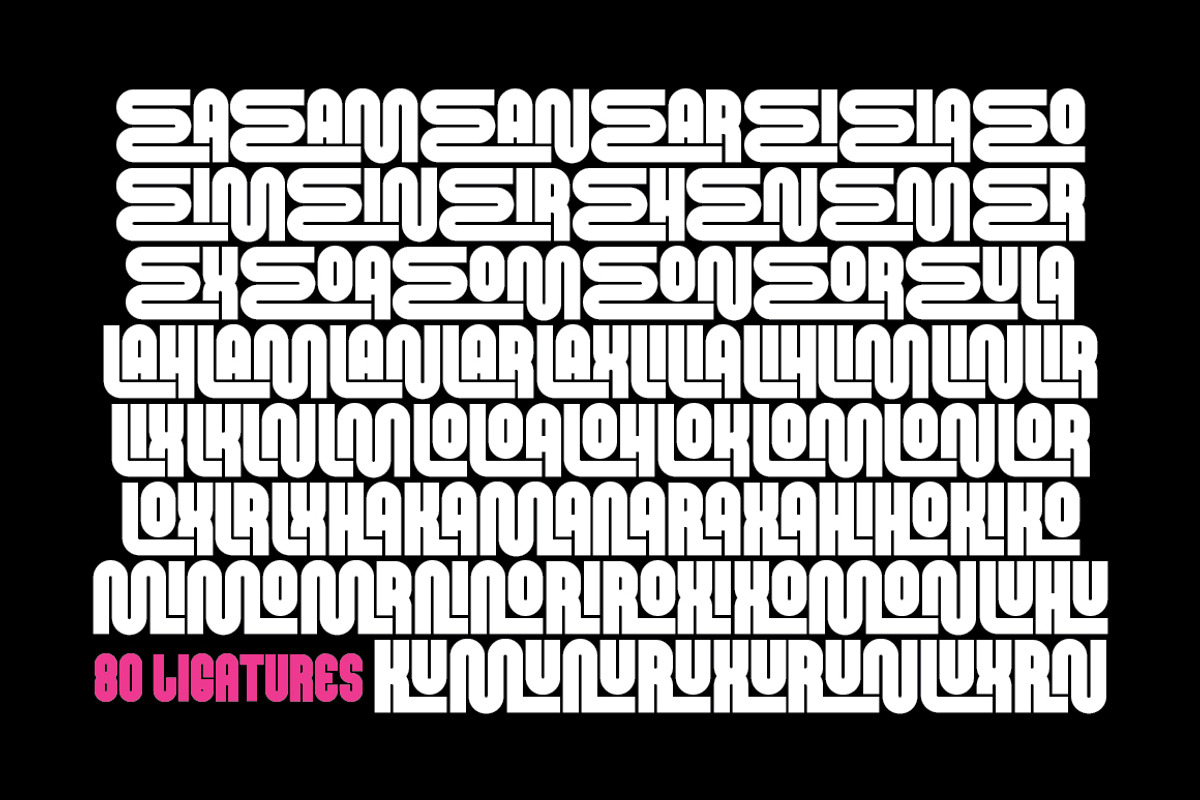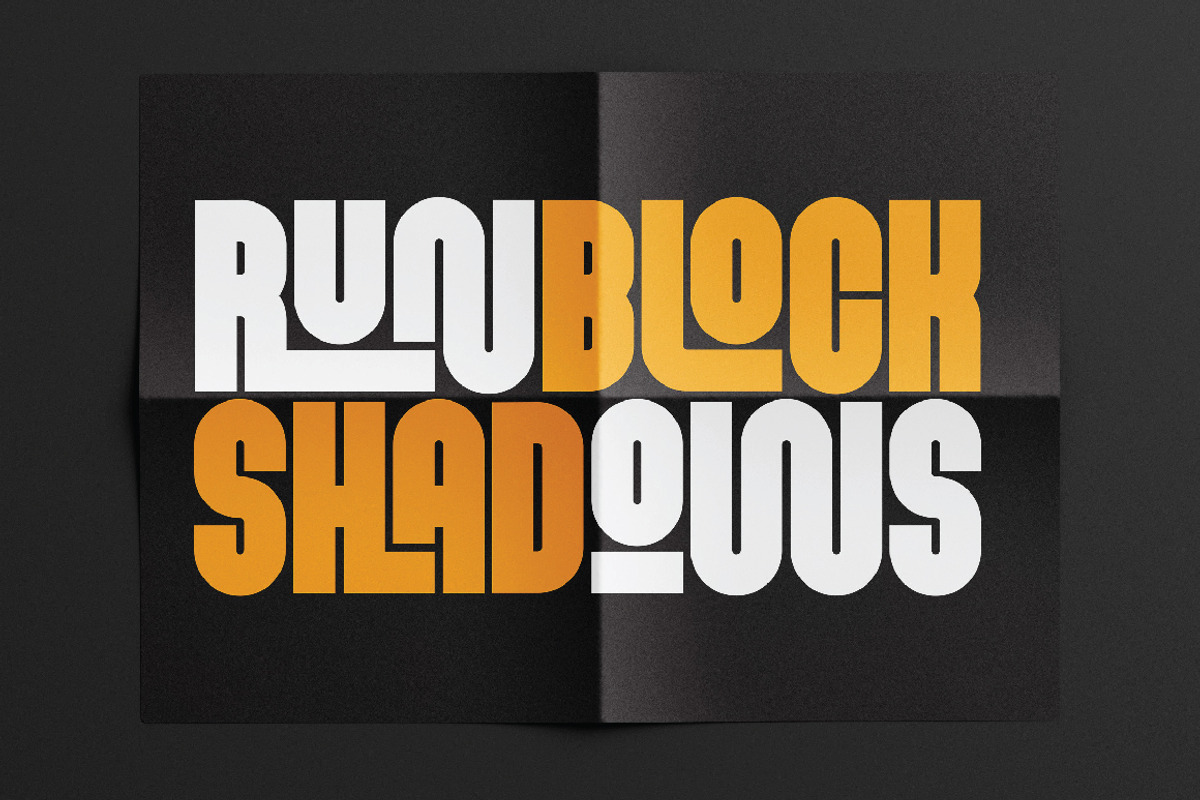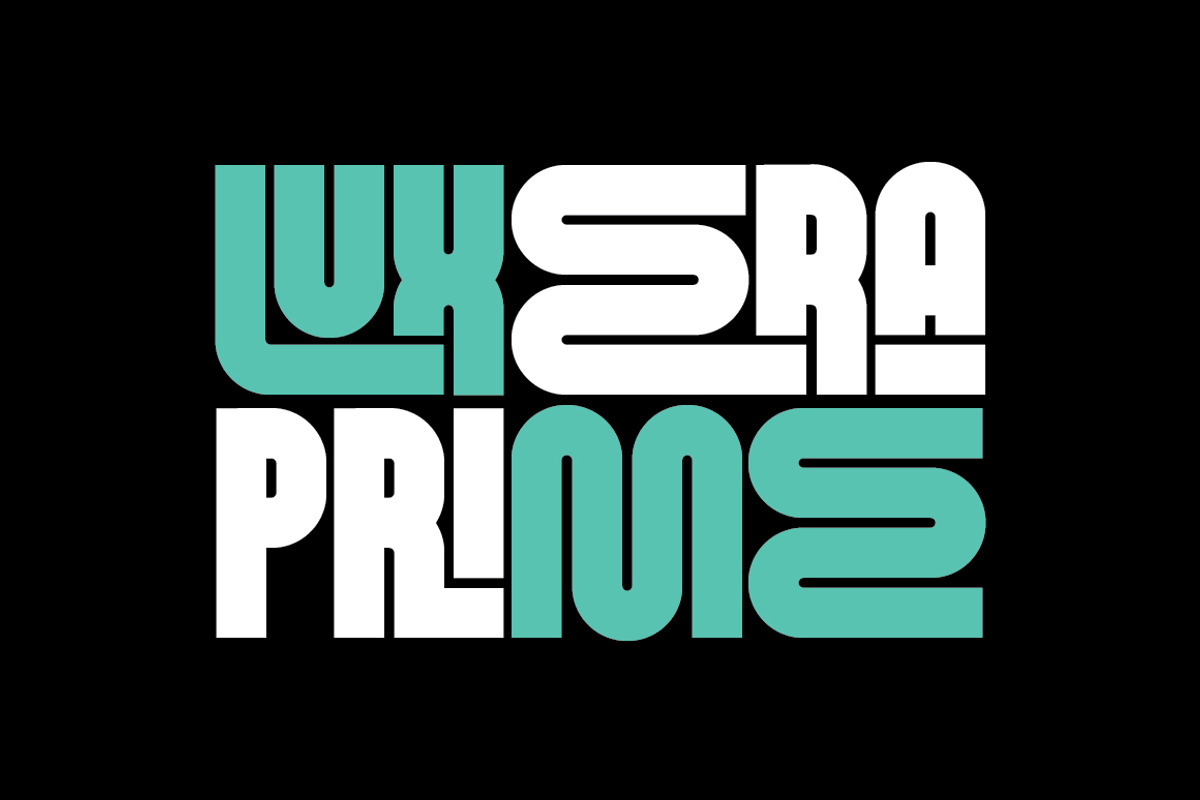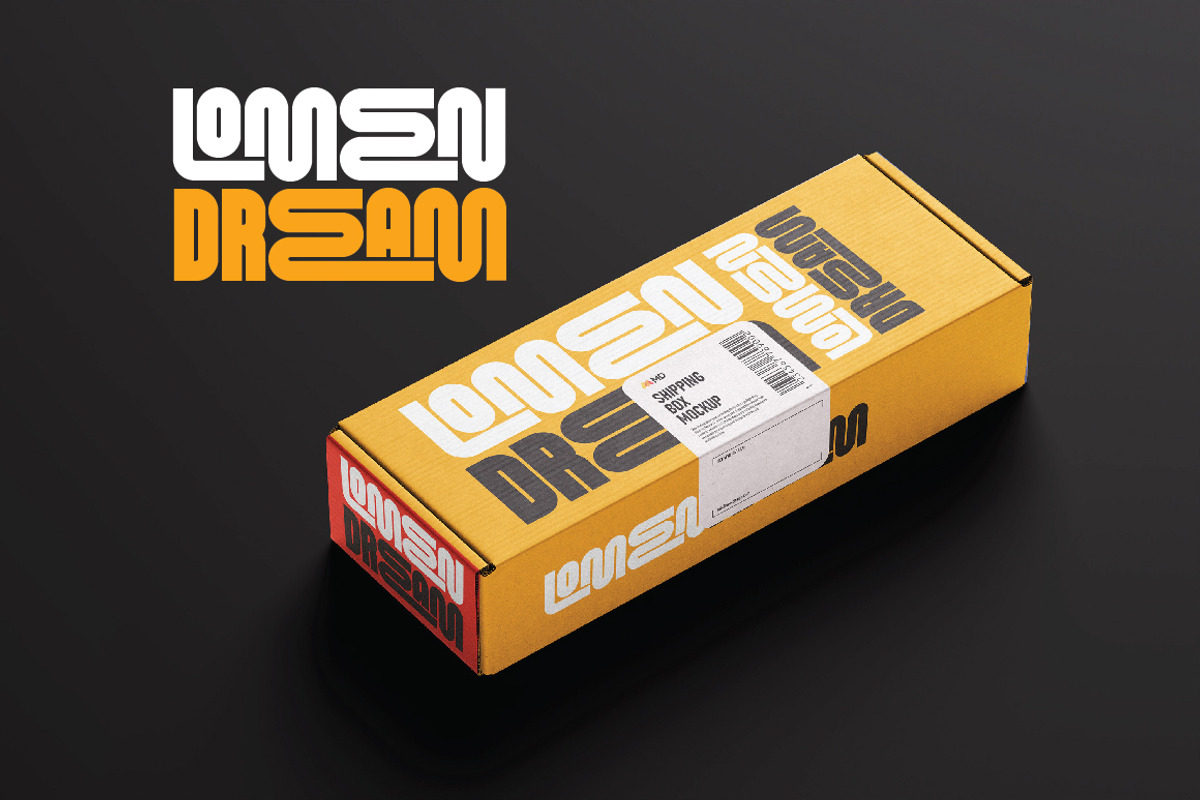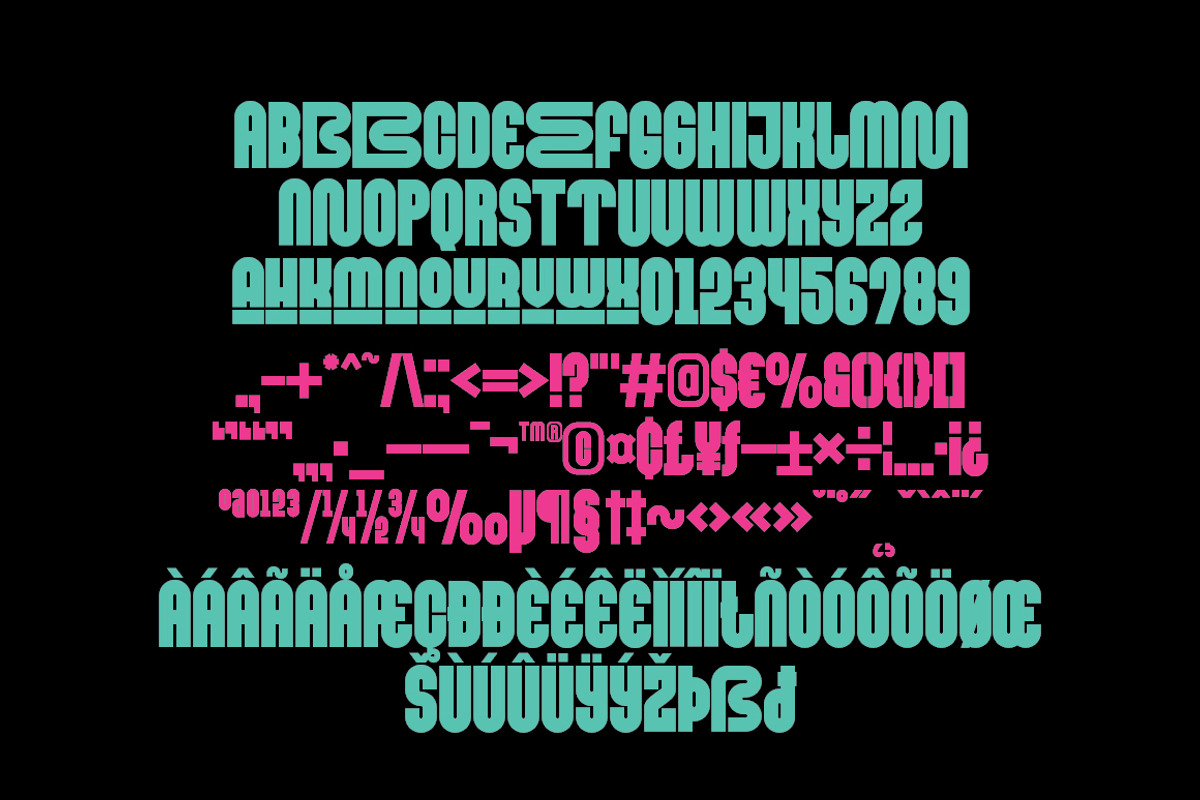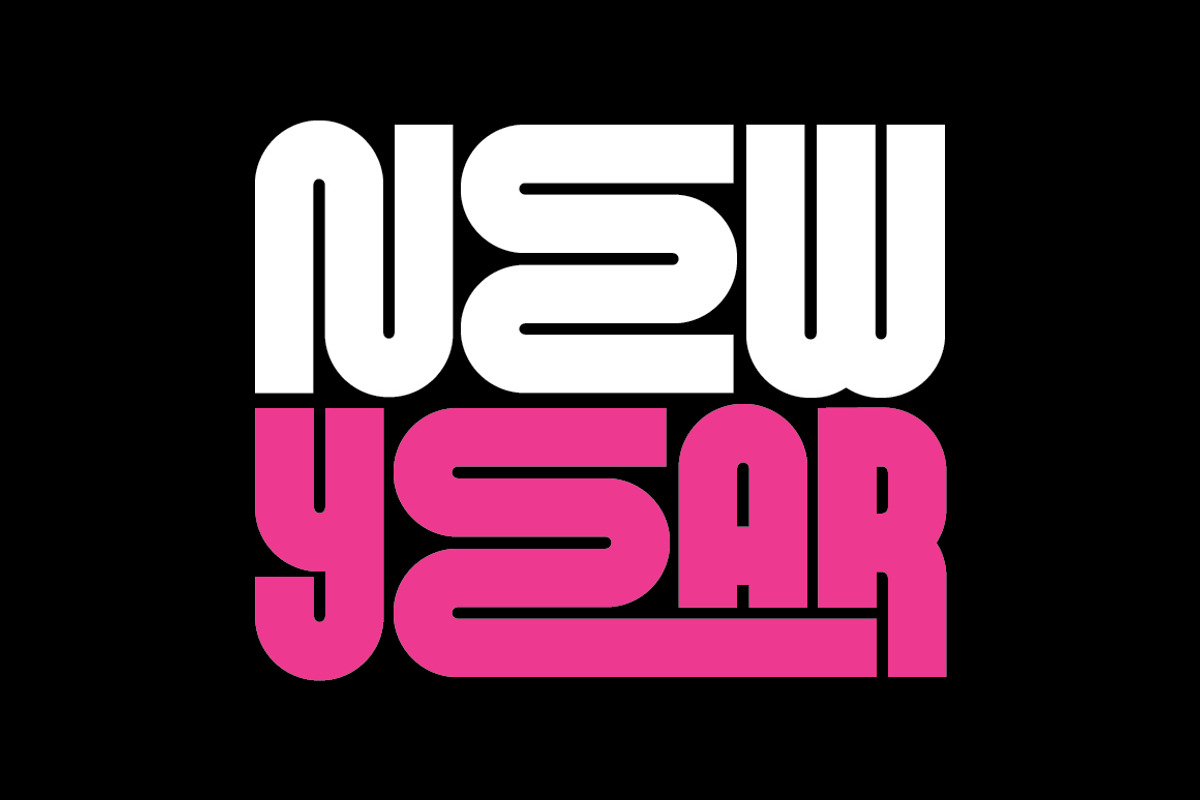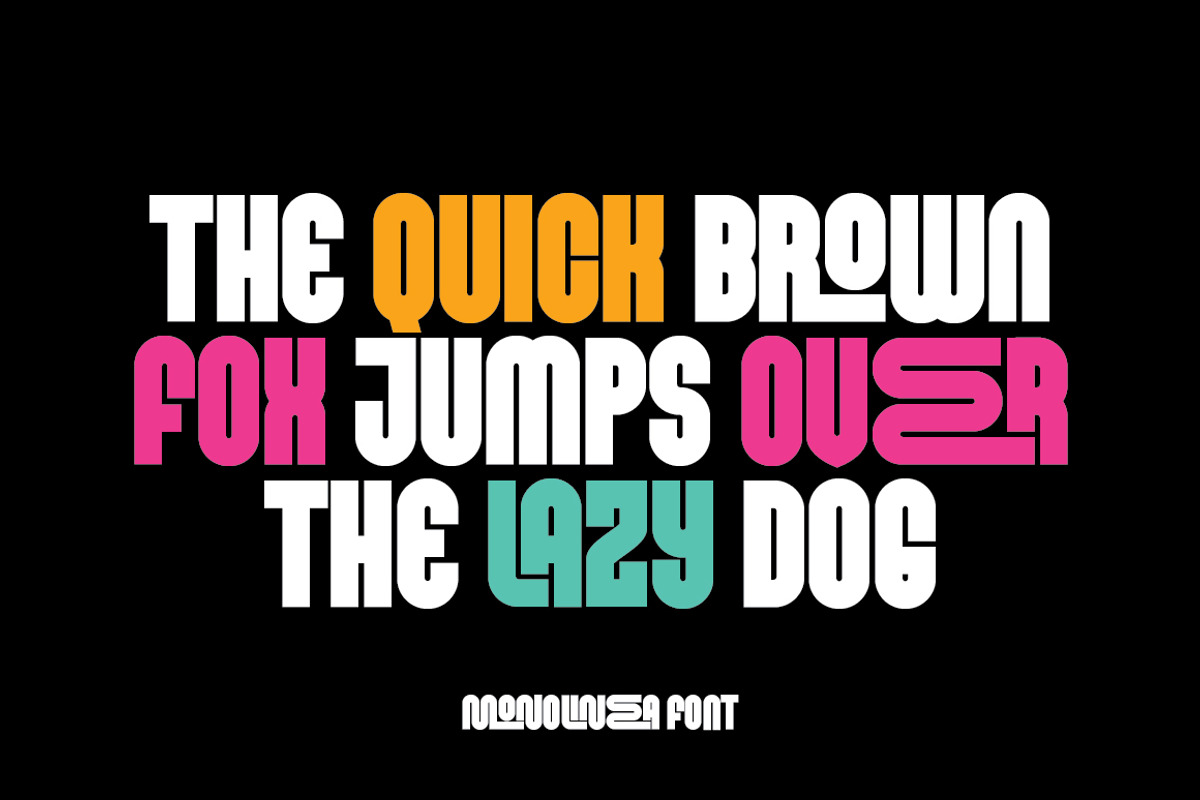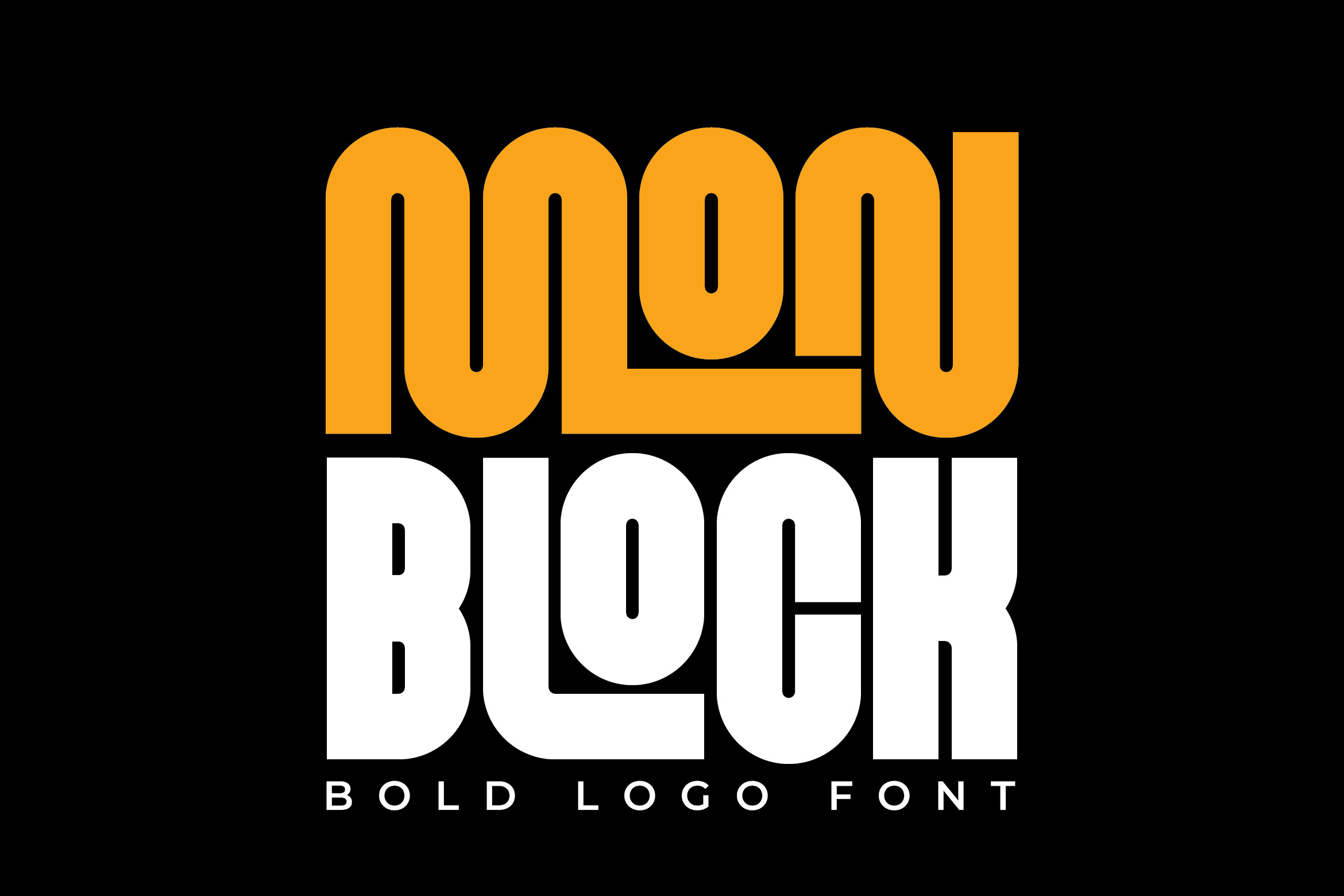
Monblock Font – Bold Logo Font
Monblock Font is a strong and modern display font with a bold geometric style. Perfect for headlines, posters, branding, logos, and creative projects. Monblock includes an extensive set of stylistic options with 80 ligatures and alternative glyphs, plus underscore-styled letters for added personality. Its futuristic and stylish design is ideal for gaming, tech, and digital themes. Make your design more powerful and eye-catching with Monblock Font.
- All Caps, Numerals & Punctuation
- 80 Ligatures & Alternative Glyphs
- Underscore Styled Letters (a, h, k, m, n, o, u, r, v, w, x)